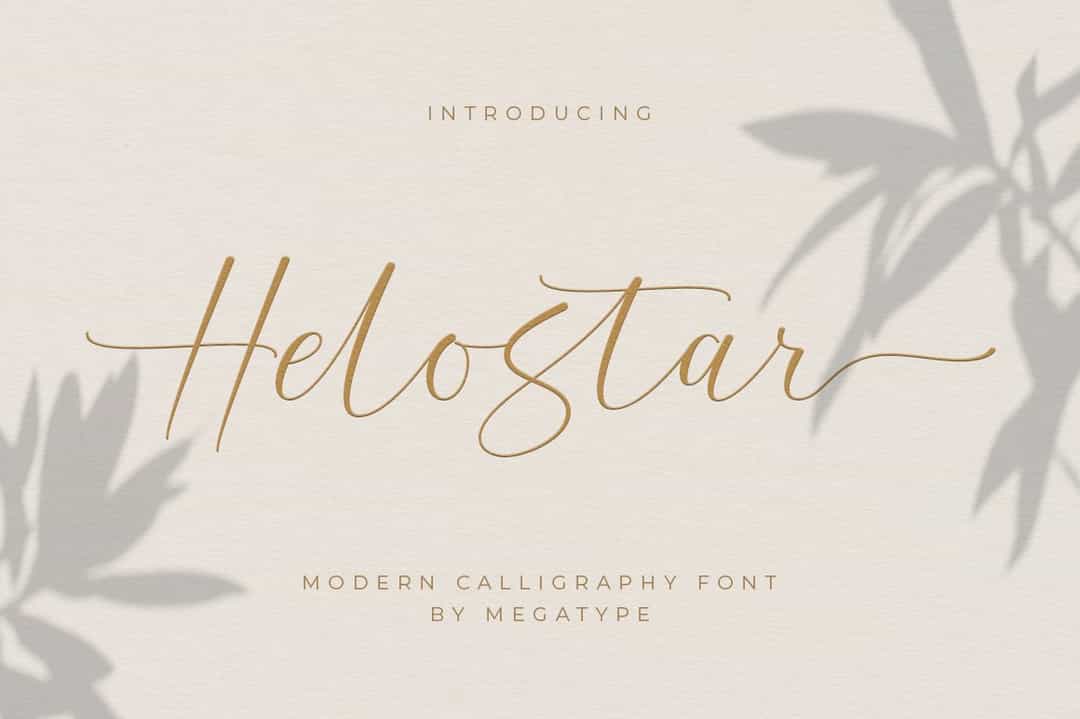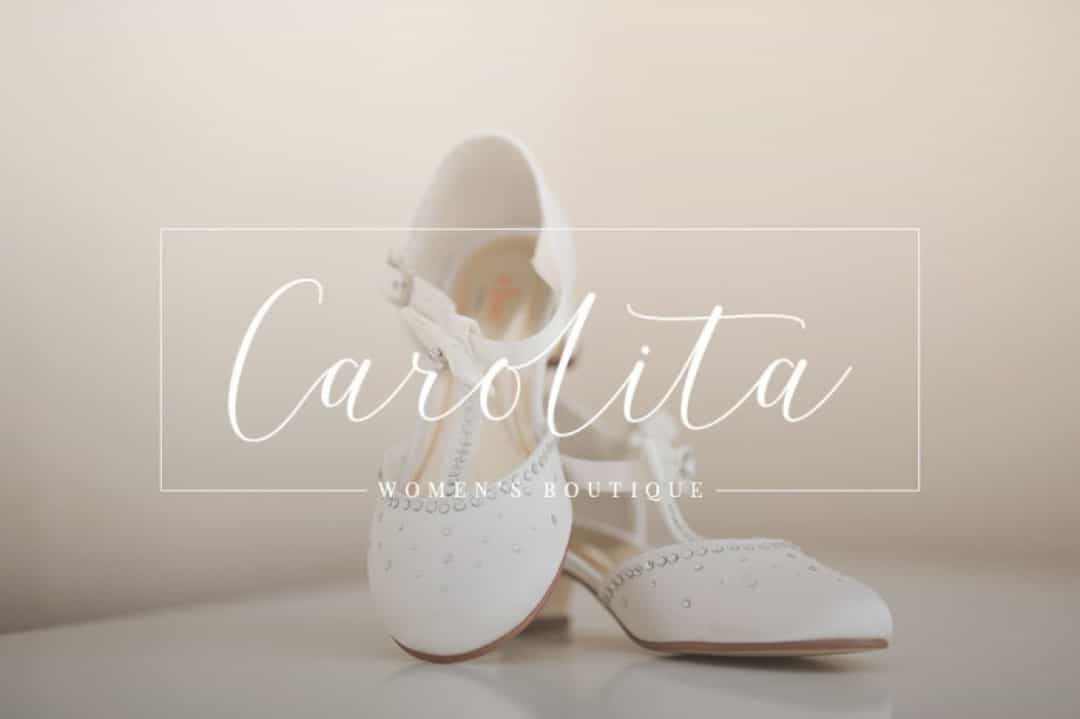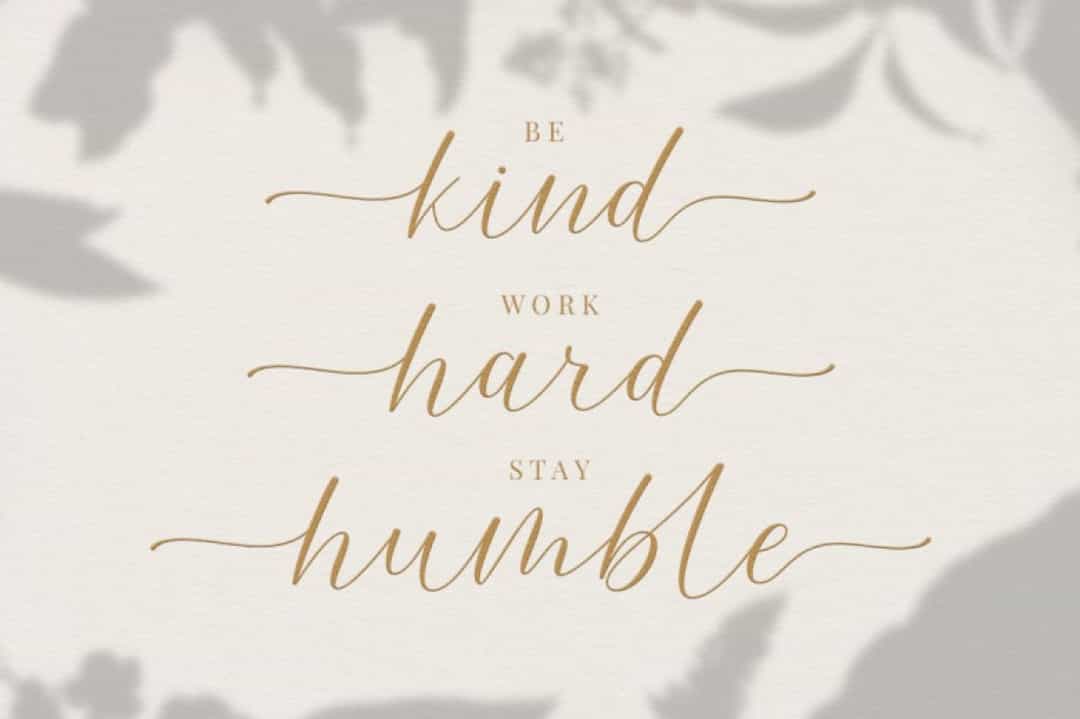
Helostar is an innovative calligraphy font with an elegant and classic appearance, featuring a distinct baseline with smooth lines, perfect for calligraphic signatures, headings, logos, wedding invitations, T-shirt letterhead, signage news posters labels badges among many other uses.